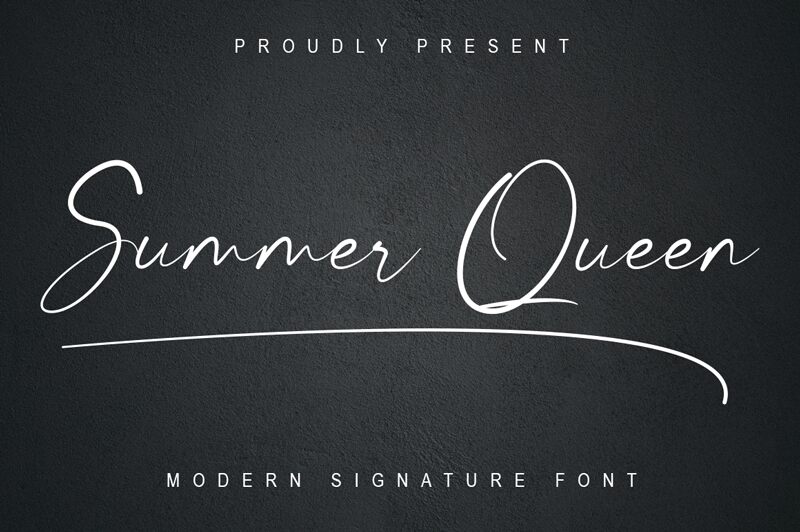
Summer Queen, a modern signature font designed by Rikbar Creator is perfect for adding a light and airy touch to your projects. It is ideal for creating stylish wedding invitations, eye-catching logos and professional website headers.
Rikbar Creator
Summer Queen